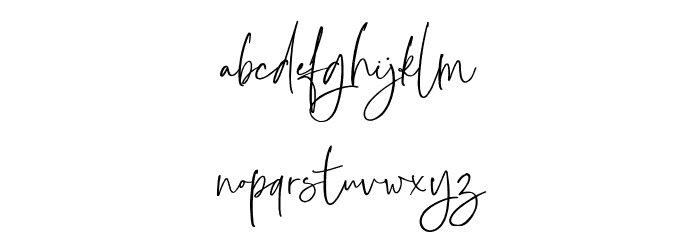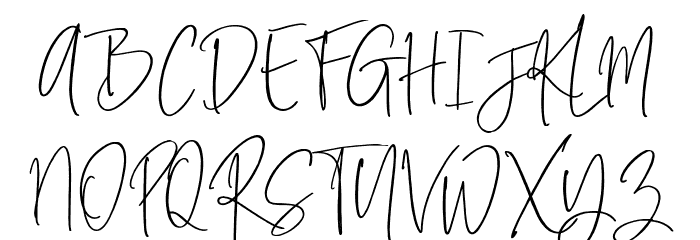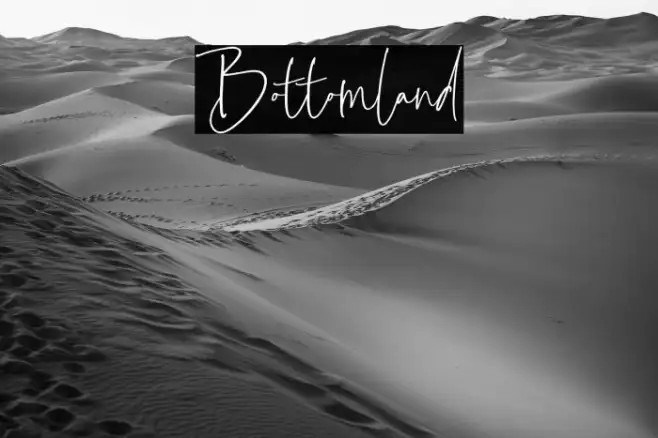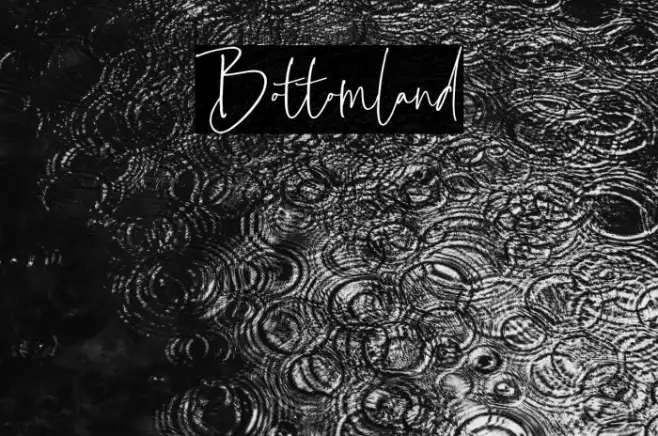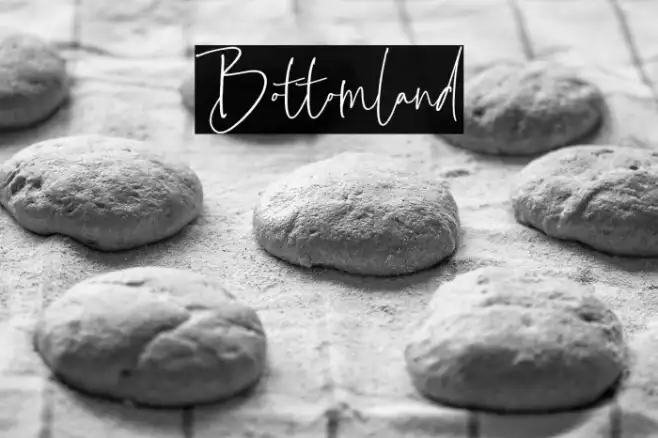
Bottomland Font
This font exudes a casual, handwritten style with a touch of elegance. The letters are elongated and slightly slanted, giving a sense of fluidity and movement. The strokes vary in thickness, adding a dynamic and lively feel to the text. The uppercase letters are bold and prominent, while the lowercase letters maintain a consistent flow, enhancing readability. The overall design is playful yet sophisticated, making it suitable for creative and informal applications. The spacing between characters is moderate, ensuring clarity without compromising the artistic flair. This font is perfect for projects that require a personal touch, such as invitations, greeting cards, or branding materials that aim to convey warmth and approachability.
A playful, handwritten font with elegant, elongated letters and dynamic stroke variations.
- Proposed Projects: Ideal for invitations, greeting cards, personal branding, and creative projects.
- Use Case: Headlines, Logos, Invitations